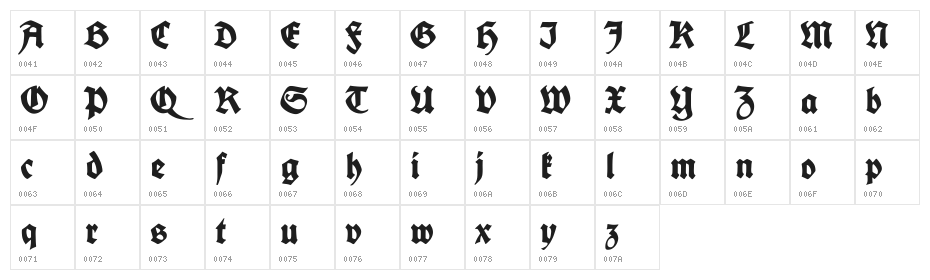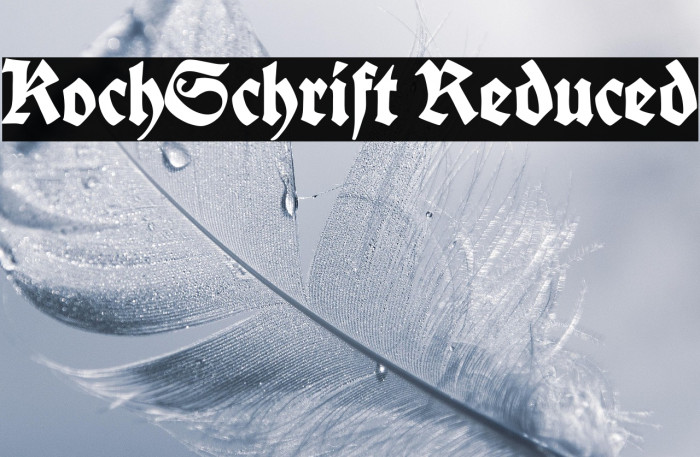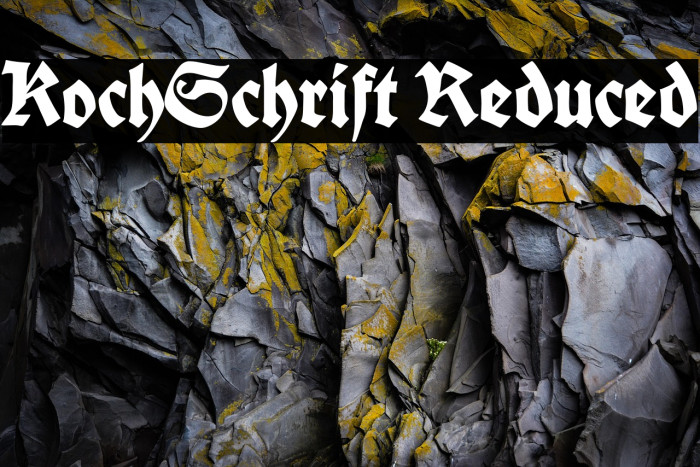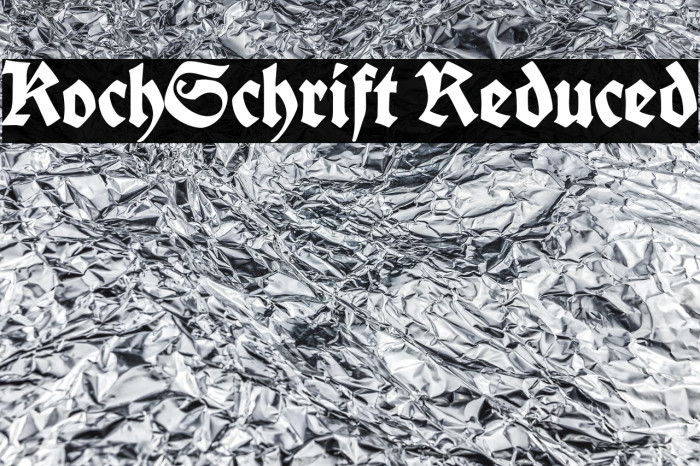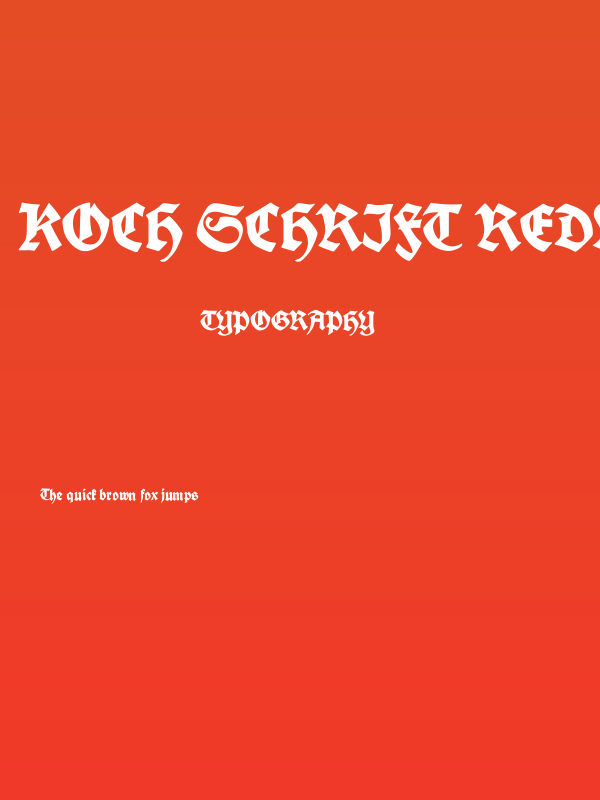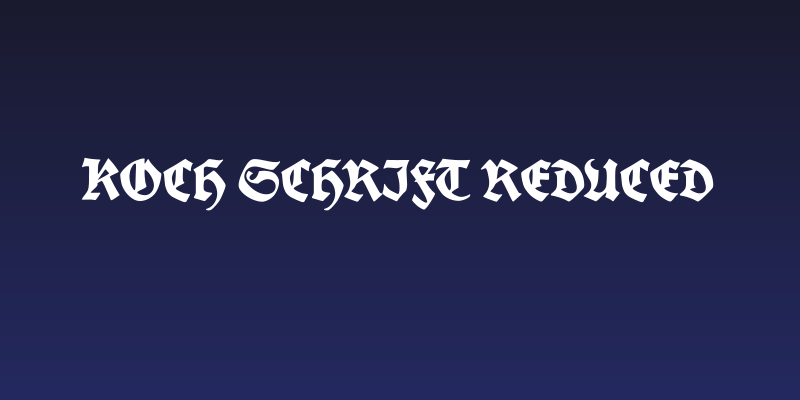
Koch-Schrift Reduced Font
Koch-Schrift Reduced Description
This font exhibits a traditional and ornate style reminiscent of historical script forms. The characters are bold and angular, with sharp edges and intricate details that give it a distinct Gothic appearance. The uppercase and lowercase letters maintain a consistent style, with a strong emphasis on vertical strokes and pointed serifs. The numbers and special characters follow the same aesthetic, ensuring a cohesive look across all glyphs. This font is particularly striking and commands attention, making it suitable for decorative purposes.
| Proposed Projects | Ideal for projects requiring a historical or medieval theme, such as book covers, posters, or branding for vintage-inspired products. |